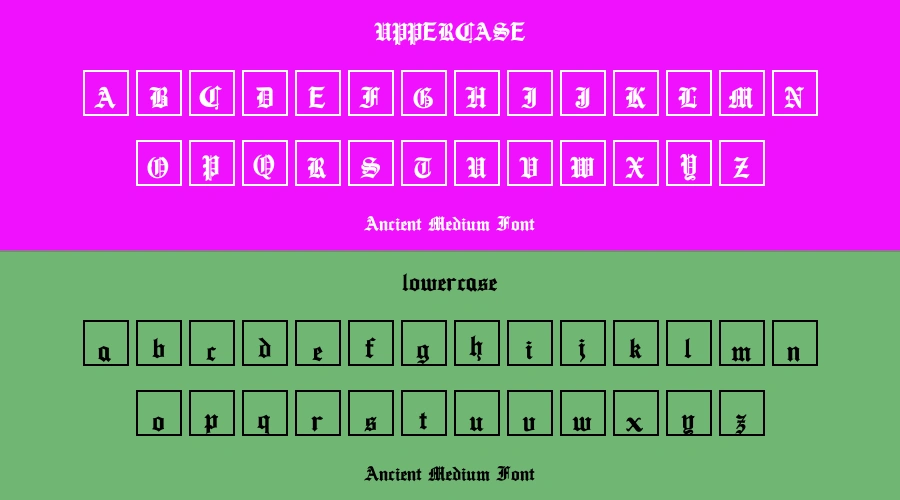
About Ancient Medium Font
Designed with precision, Ancient Medium Font merges refined proportions with consistency in every character. This versatility makes it particularly effective for web design, where sophistication and cultural relevance directly impact communication quality. Each letterform demonstrates meticulous craftsmanship.
Technical excellence shines through elements like tapered strokes and beginning forms, enhancing typographic versatility. In creative titles settings, Ancient Medium Font proves its worth through superior microfilm readability. The thoughtful execution of x-height and contemporary relevance ensures professional results.